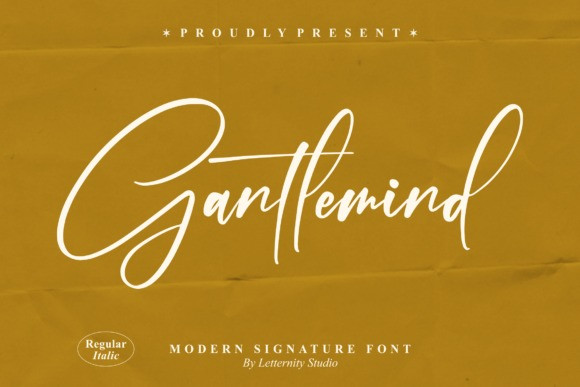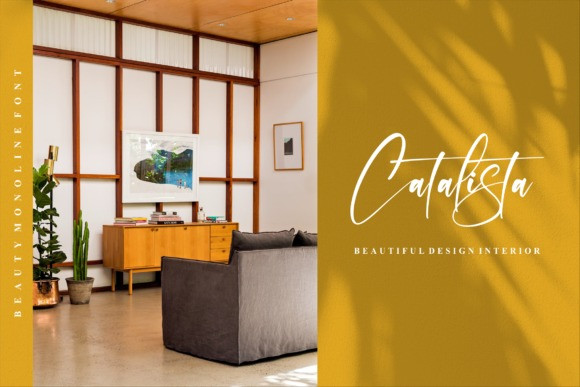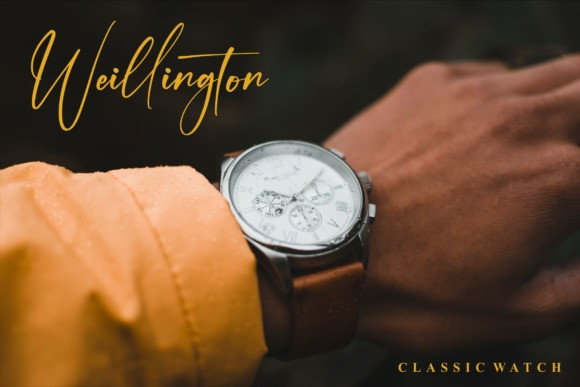
Gantlemind Font
Gantlemind is a fashionable and stylish script font. It is suitable for any projects such as: logos, branding projects, homeware designs, product packaging, mugs, quotes, posters, and all your other lovely creations that need a beautiful script taste.